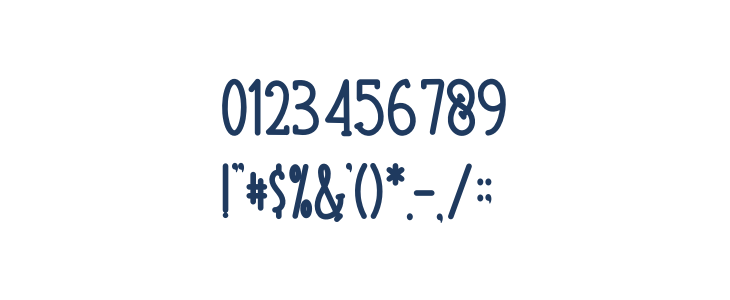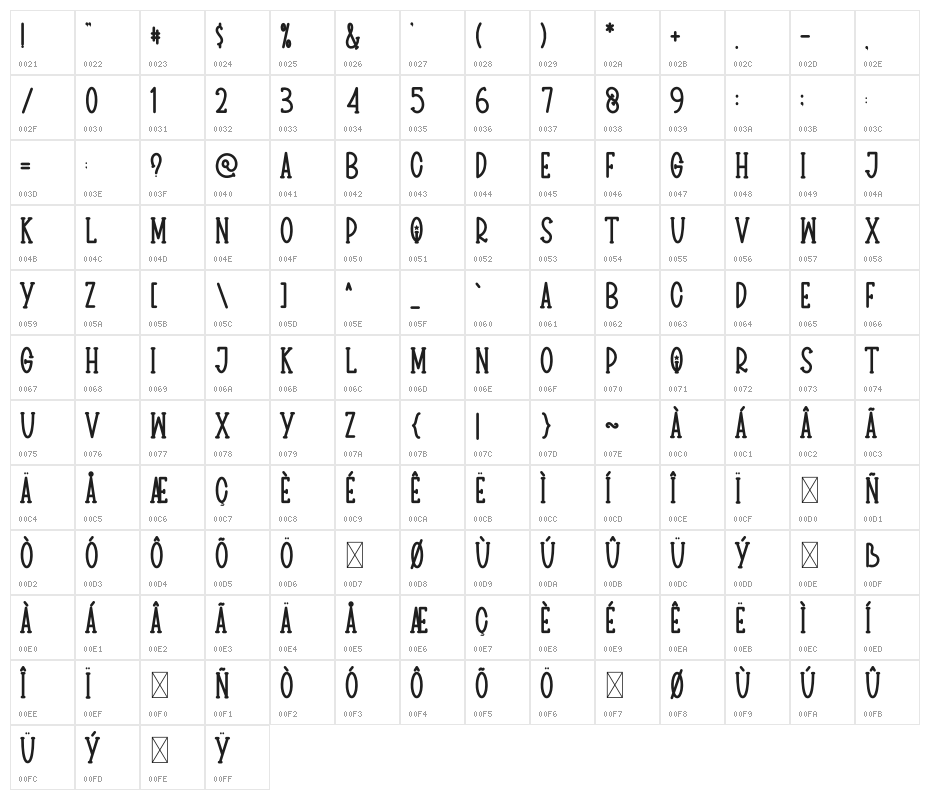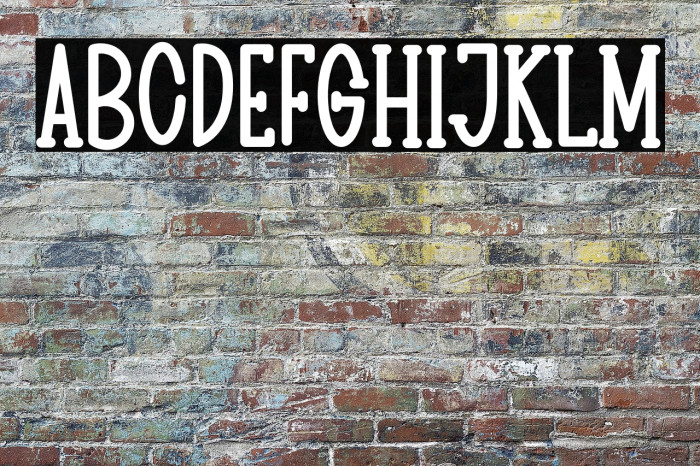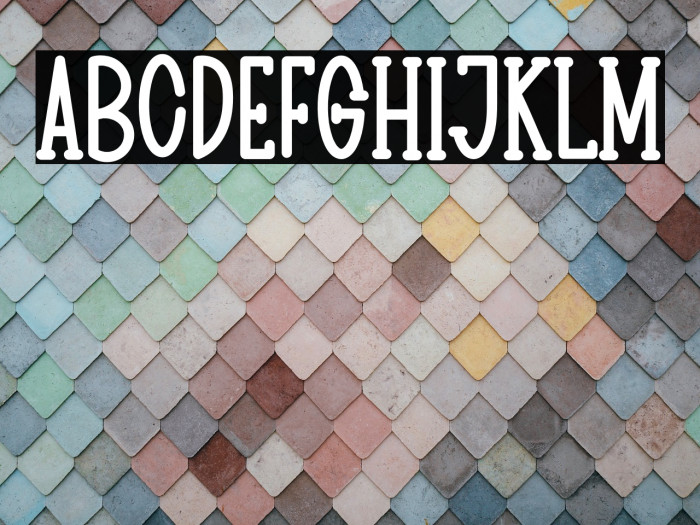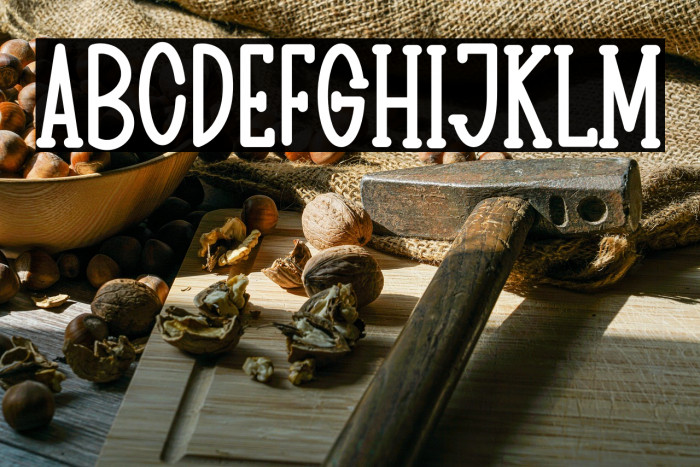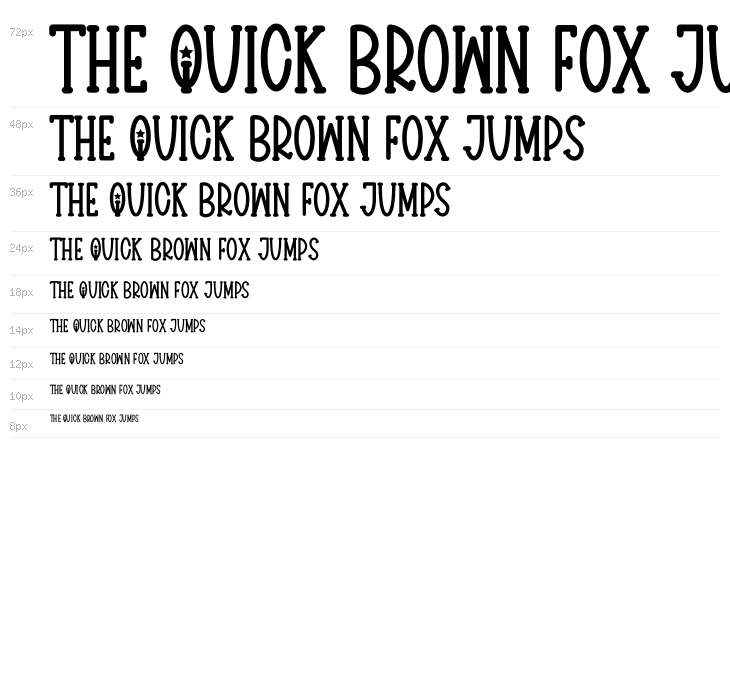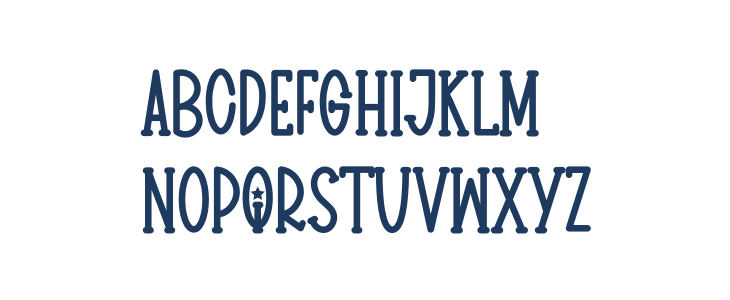
BIG HOUSE Font
BIG HOUSE Description
This font features a playful and decorative style with unique star-shaped cutouts in the center of certain letters, adding a whimsical touch. The characters are bold and slightly elongated, giving them a distinctive appearance. The rounded edges and consistent stroke width contribute to a friendly and approachable feel. The numbers and special characters maintain the same playful aesthetic, making this font suitable for creative and informal projects.